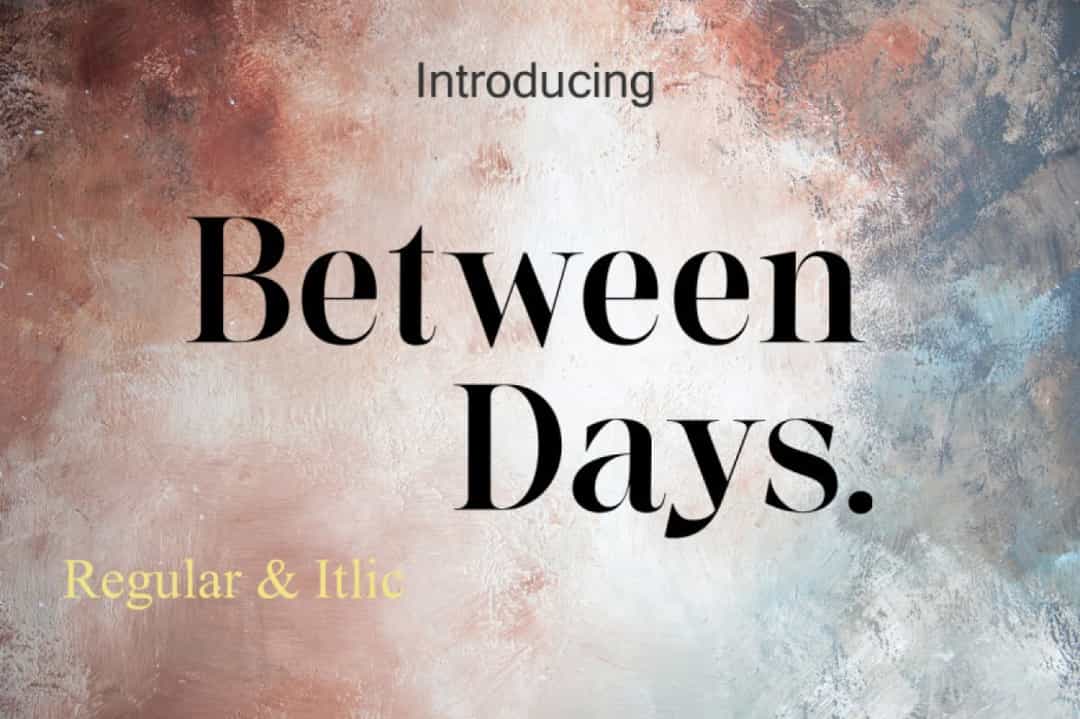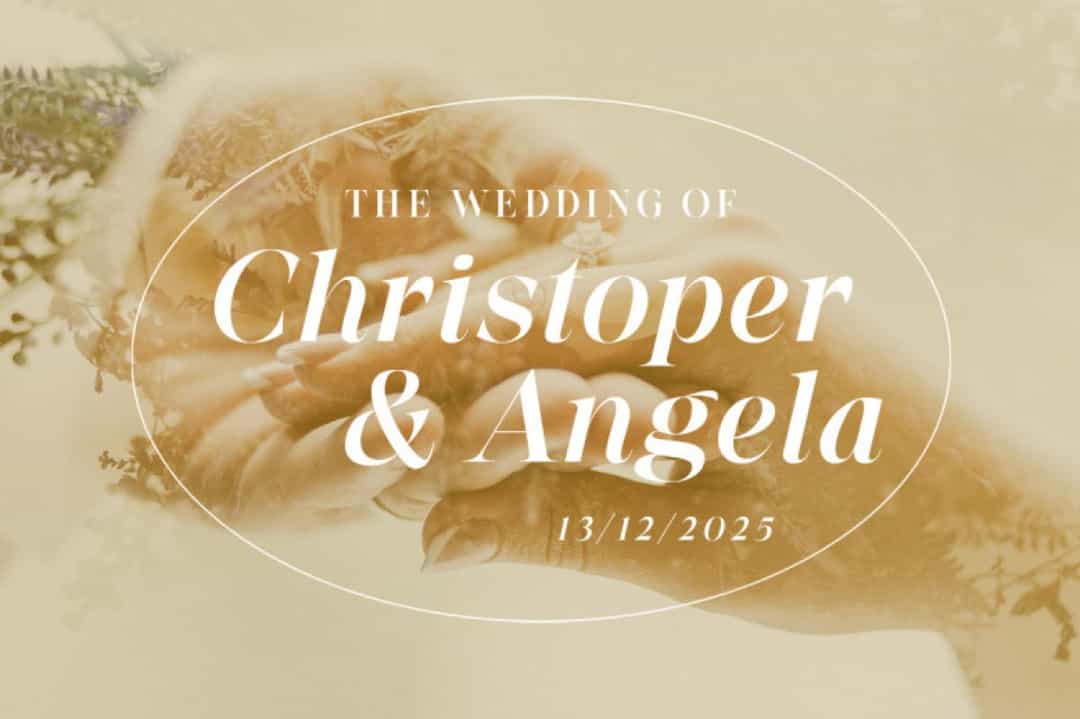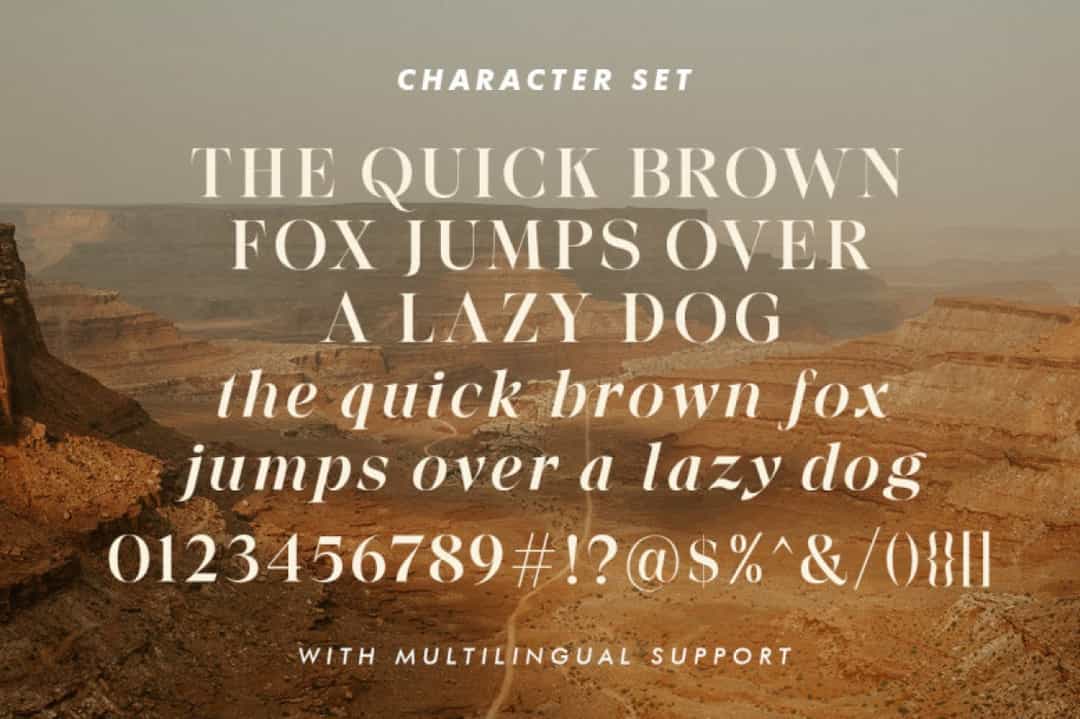
Discover Between Days Font, part of the Serif collection—a versatile and unique font perfect for adding a personal touch to your projects. Download it for free and enjoy crafting designs with style, from invitations to social media posts. This font is available exclusively for personal use, giving you the freedom to create without limits. Unlock your creativity with Between Days Font today!
Between Days is an elegant, classic, and distinctive serif font perfect for web design and business cards, or any project needing its own distinctive style. Use it in your designs and watch as they come to life! You will be amazed by what results arise.